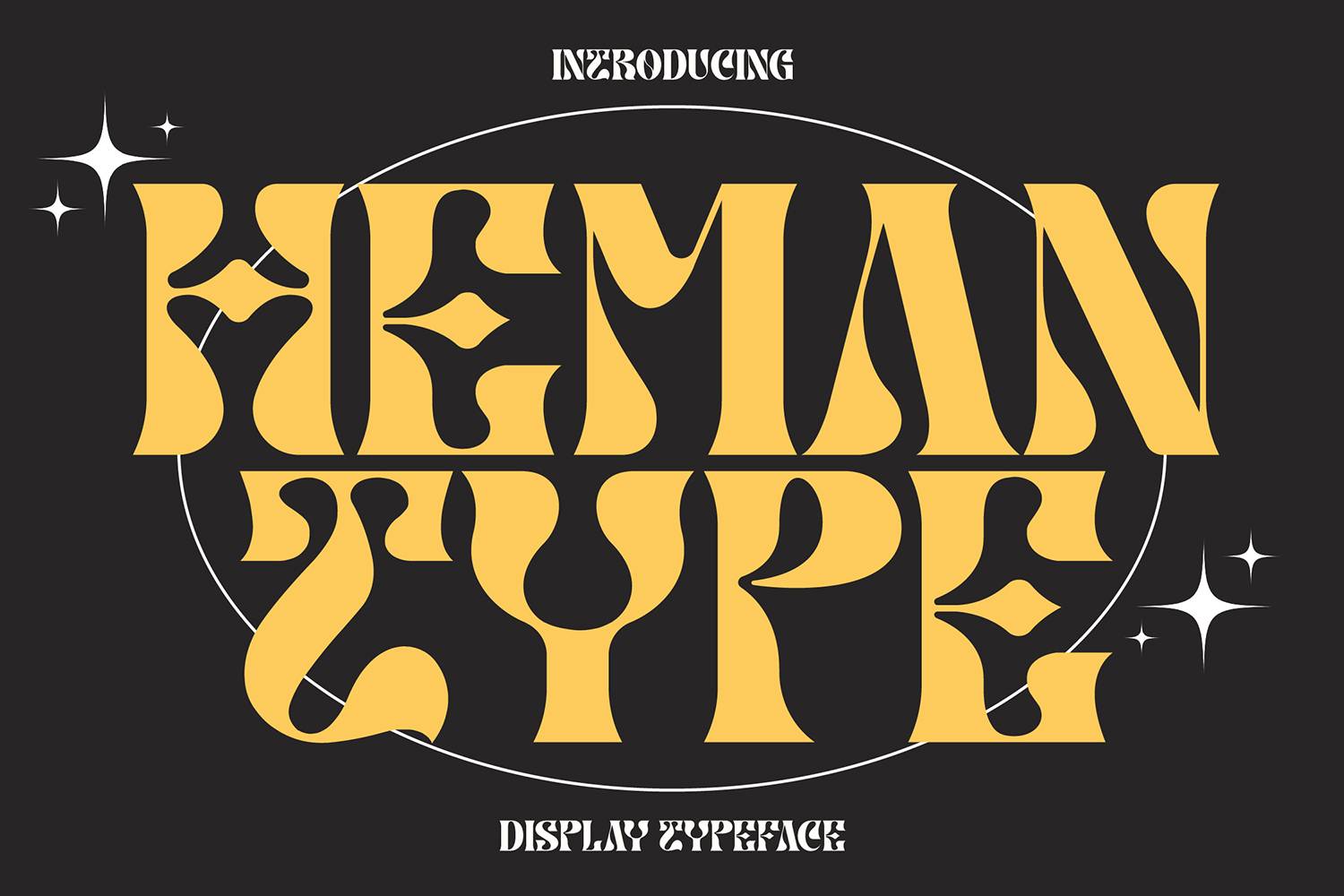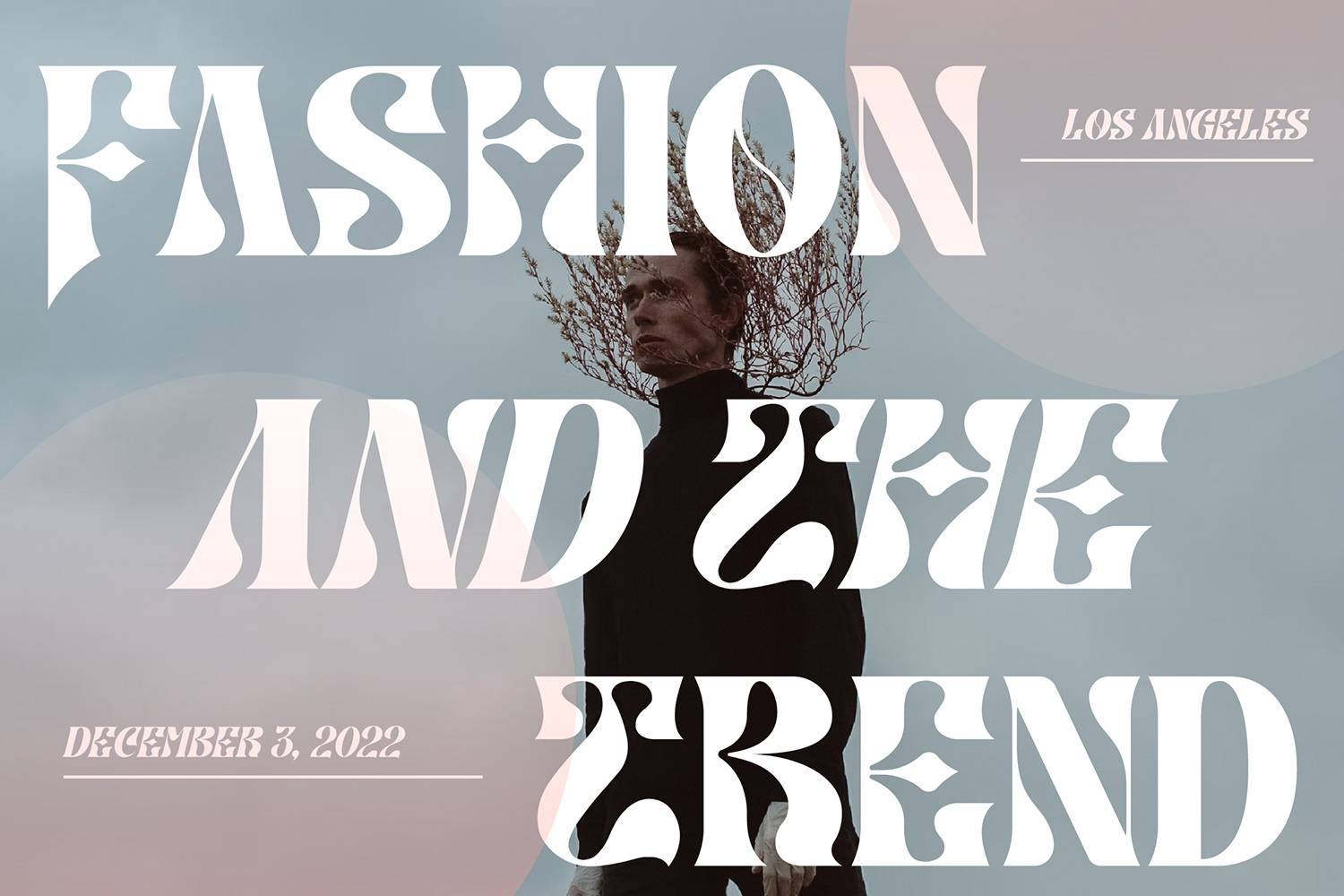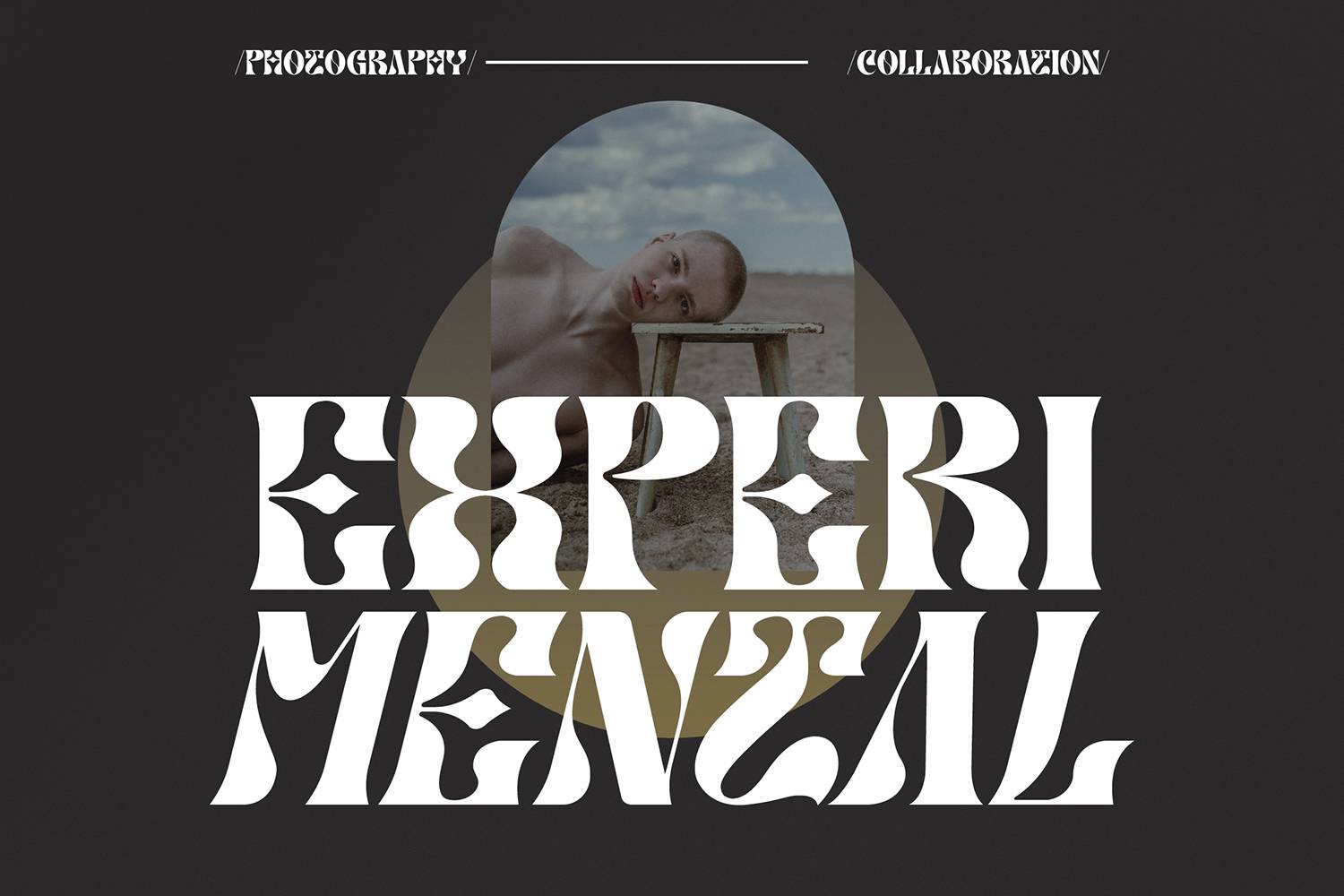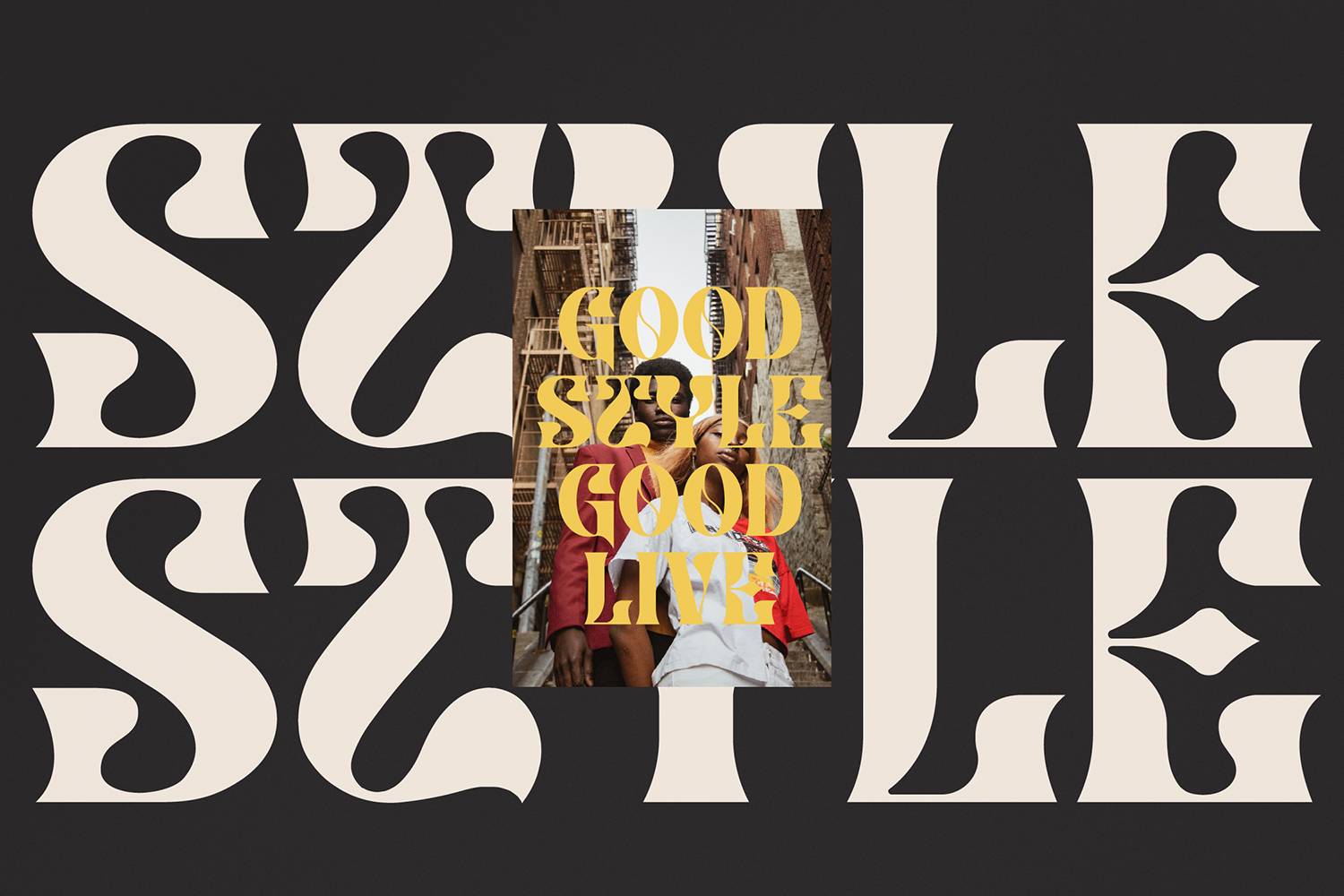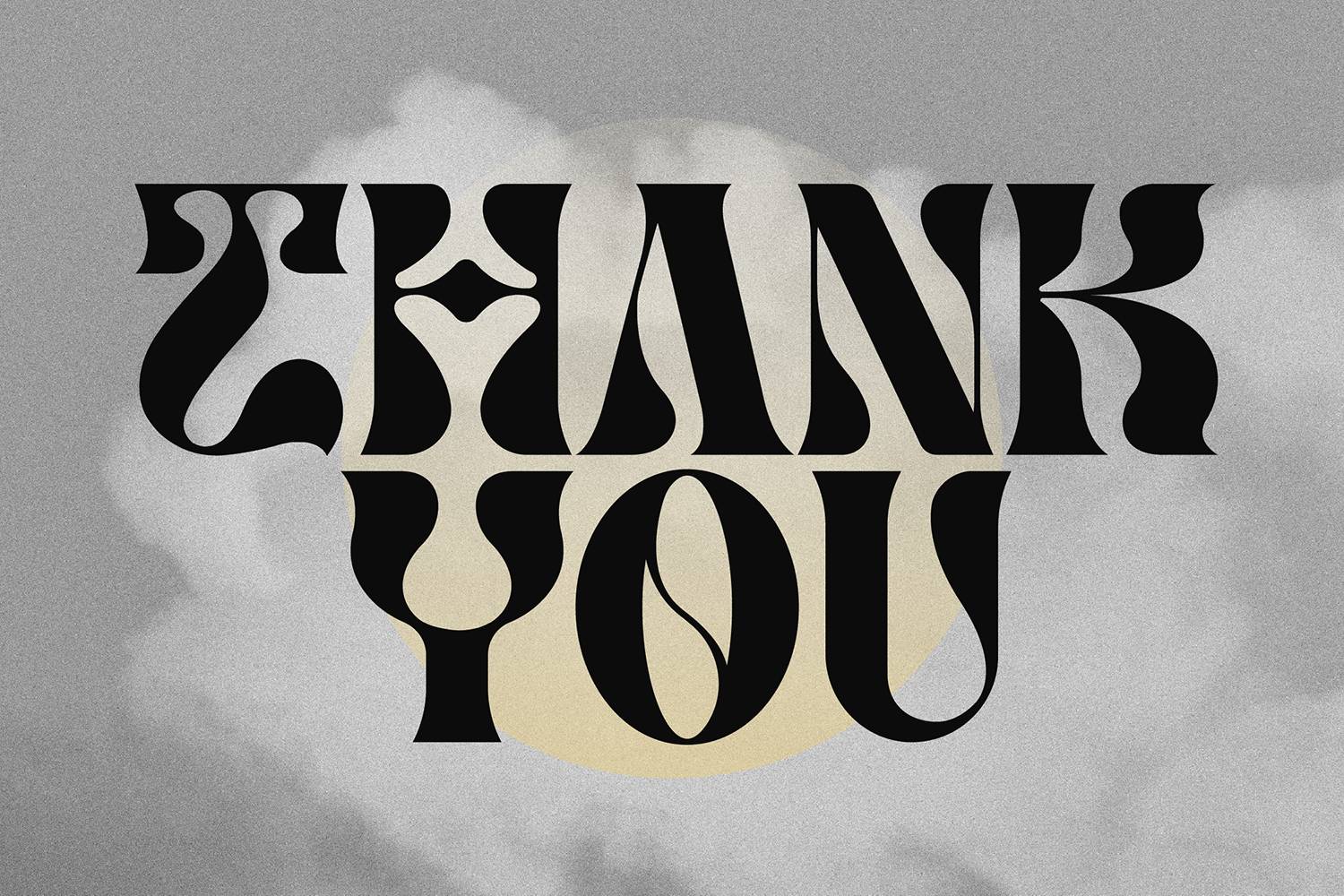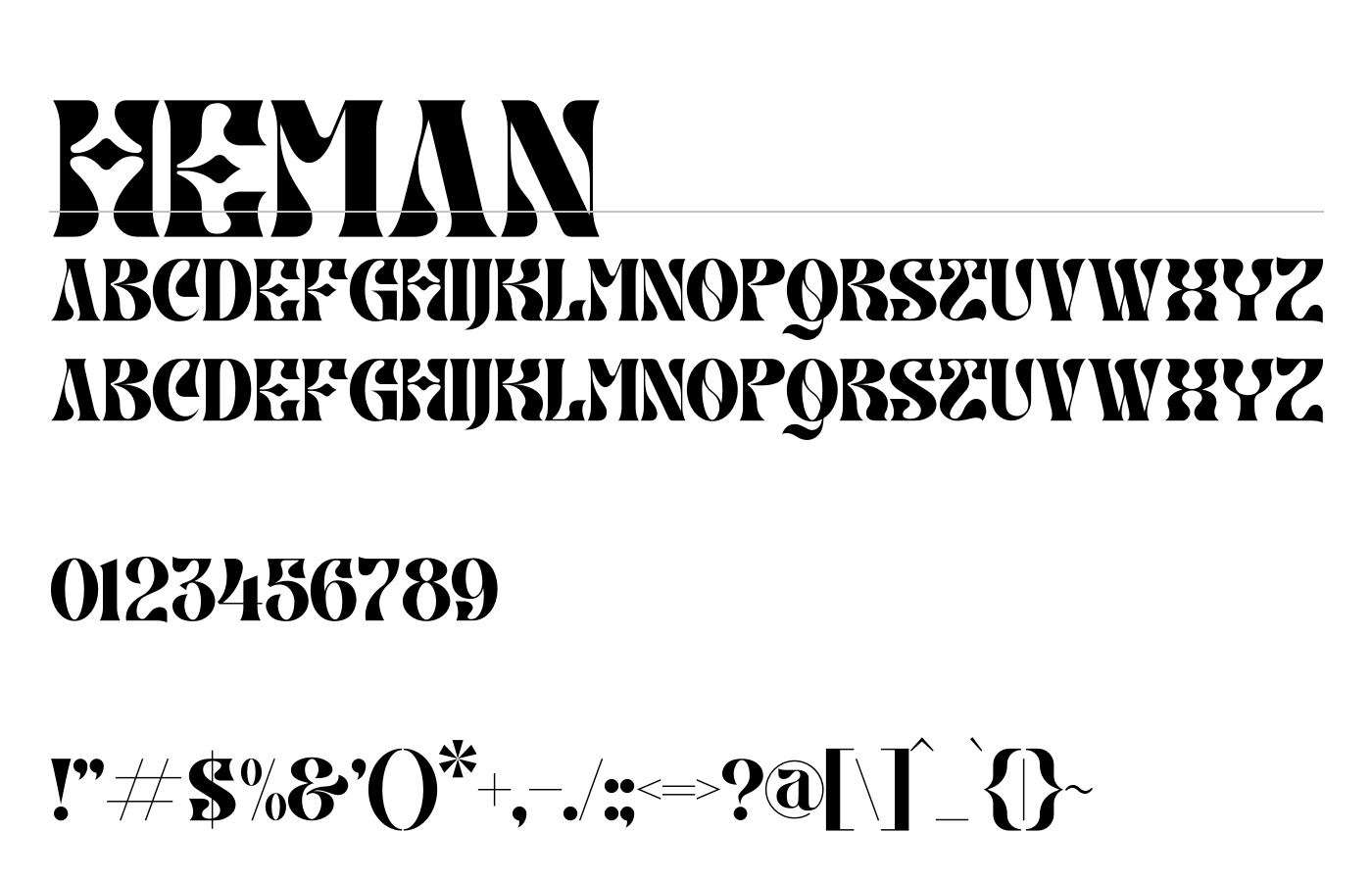
Heman is a bold, decorative serif font with a strong modern vibe, featuring high contrast between thick and thin strokes and unique, artistic curves that give it a theatrical and elegant personality. Its stylized letterforms and dramatic shapes make it perfect for eye-catching headlines, logos, and branding where a distinct, sophisticated, and creative look is desired. This font shines in fashion, editorial, and luxury contexts due to its blend of boldness and ornamental flair.
Heman Font
About Heman Font